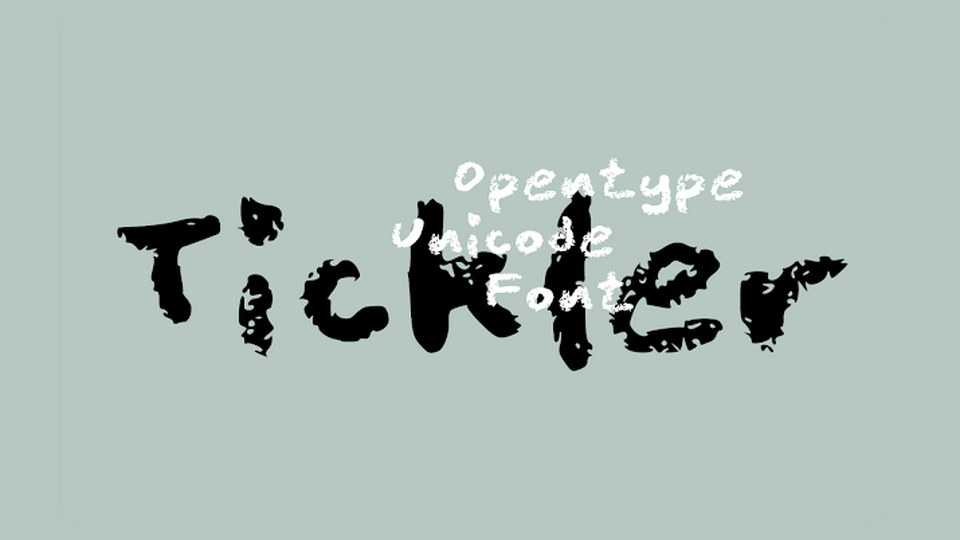
Download PVF Tickler font, a handwritten bold pencil typeface with a natural textured look. PVF Tickler font is suitable for notes, quotes, posters and other projects.
Designer: Petros Vasiadis